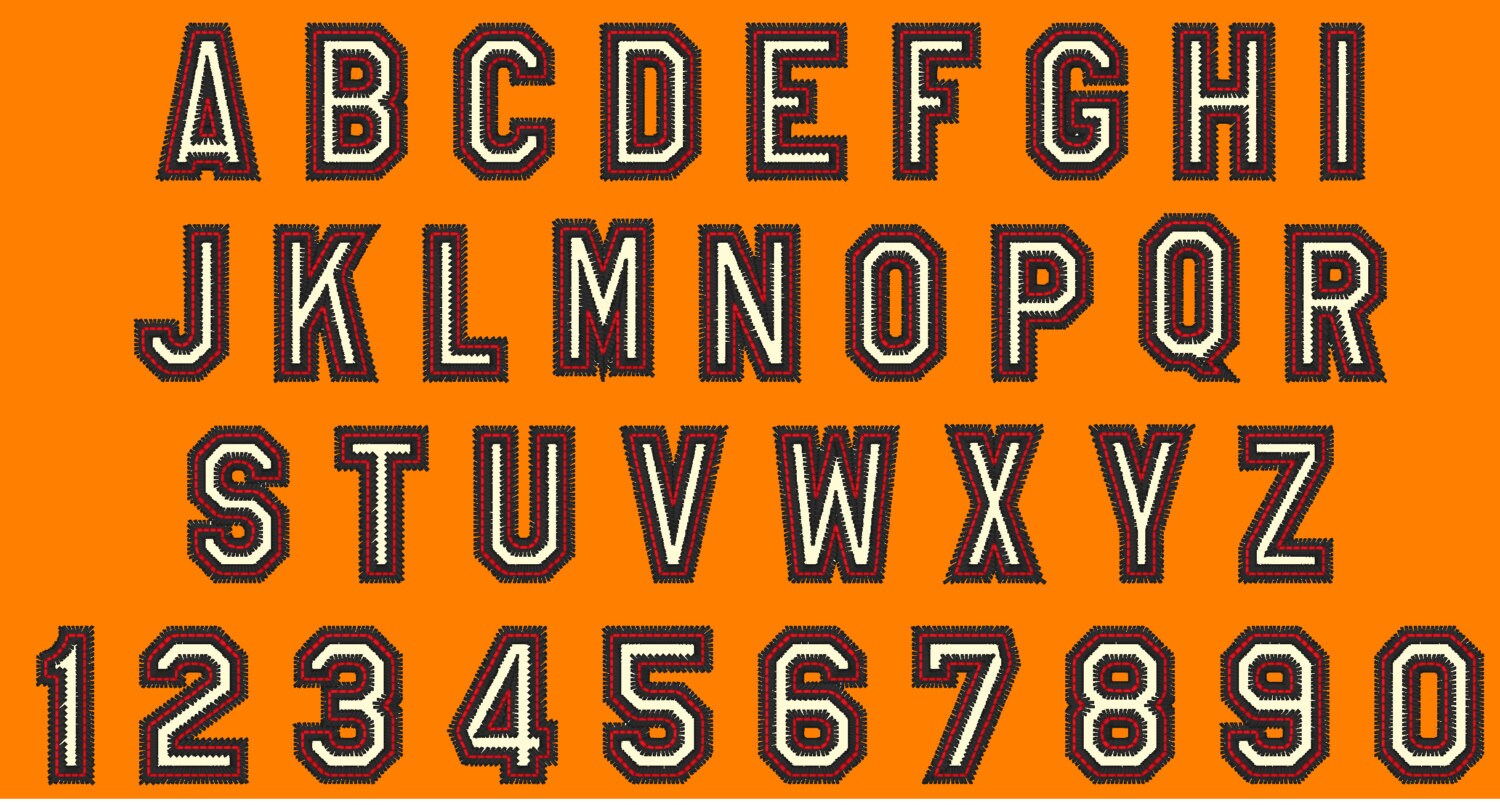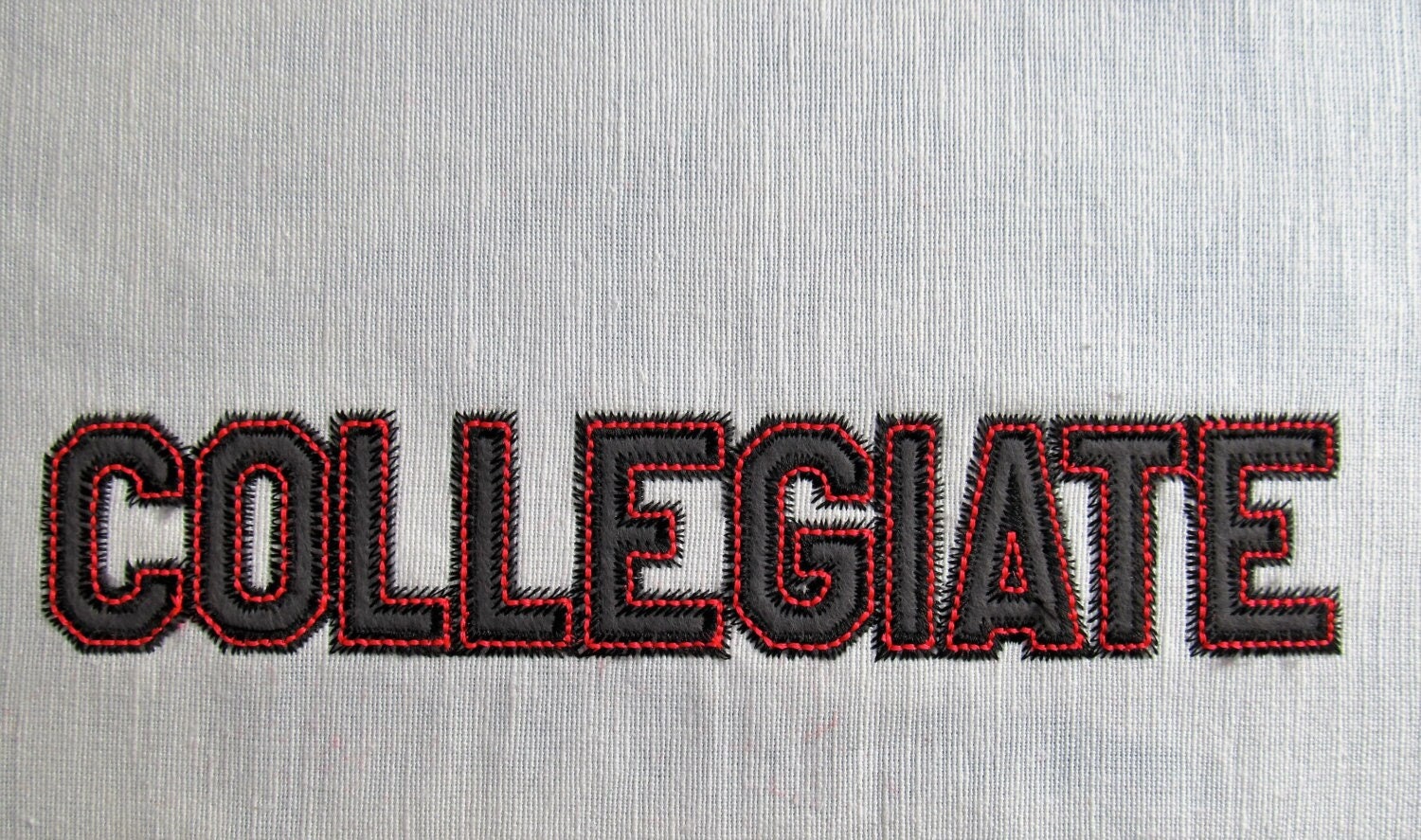
Zig Zag applique Font Athletic Sport High School Team Players font alphabet machine embroidery designs in mini sizes, monogram BX included
Whole alphabet - capital letters and numbers
Has wide nice zig-zag stitch and contrast color top bean stitch for a neat look.